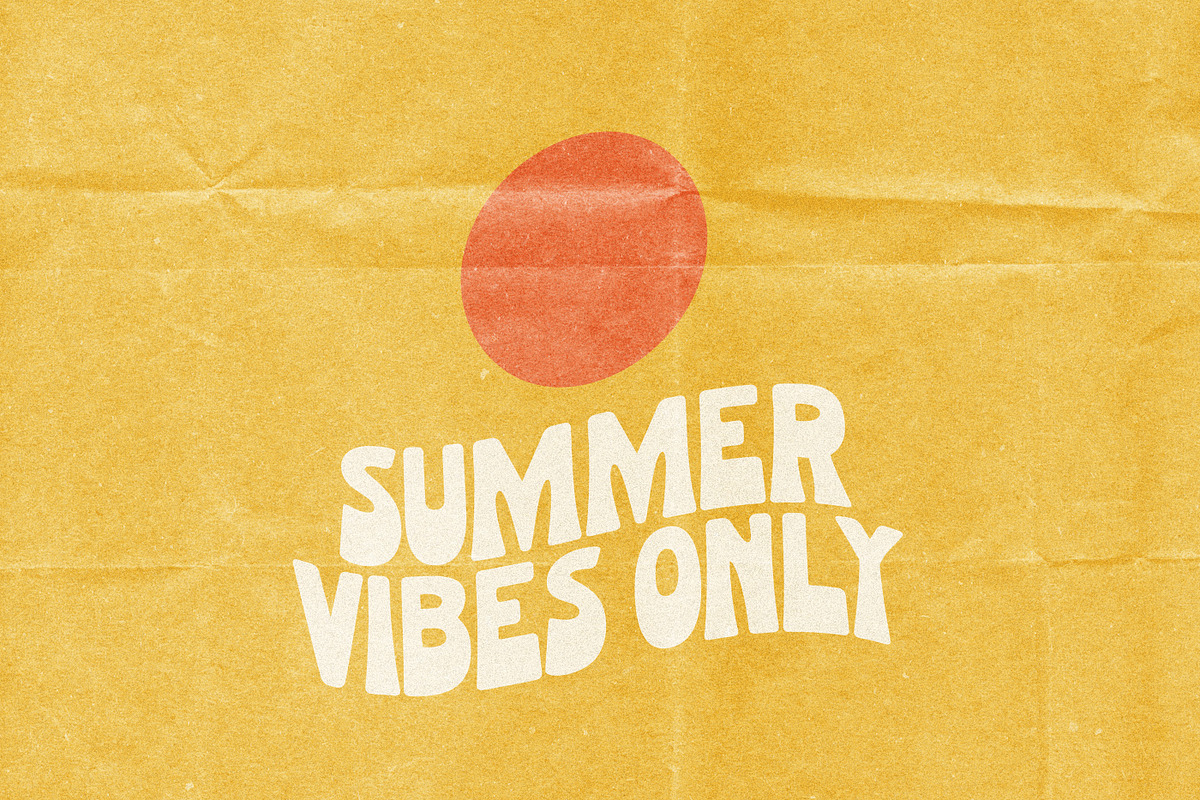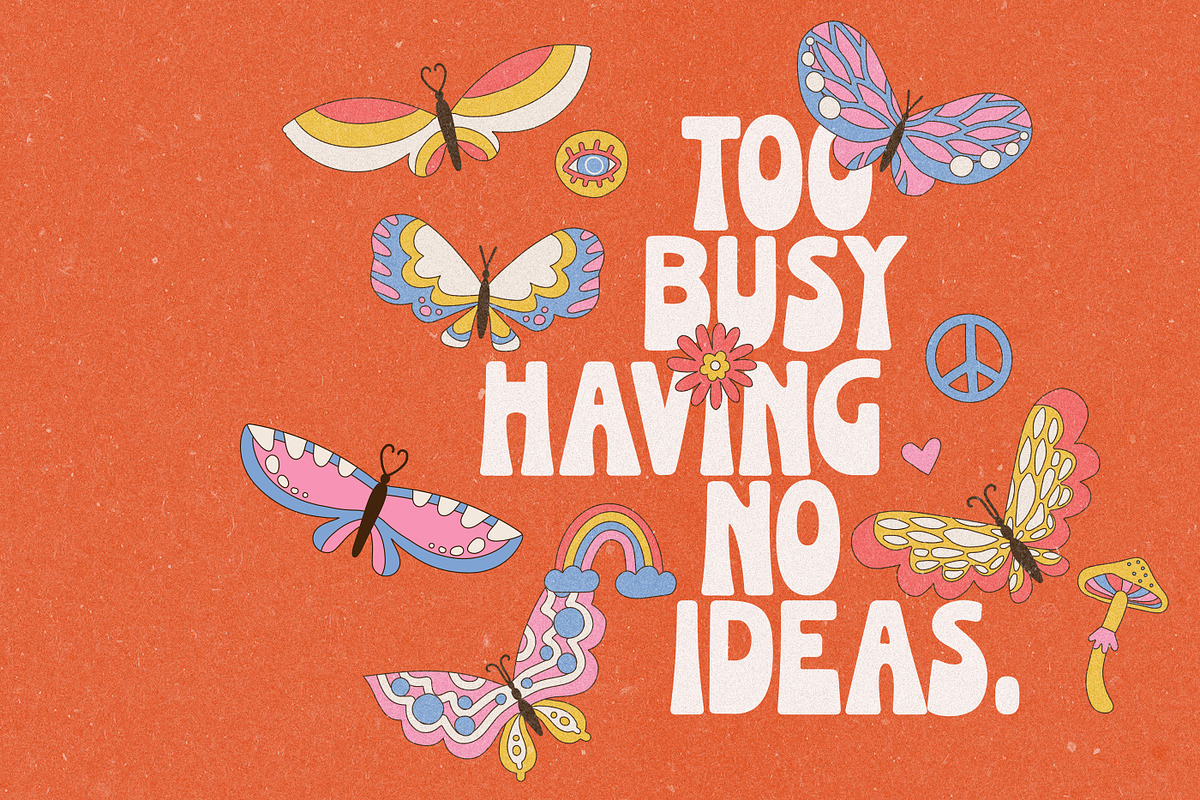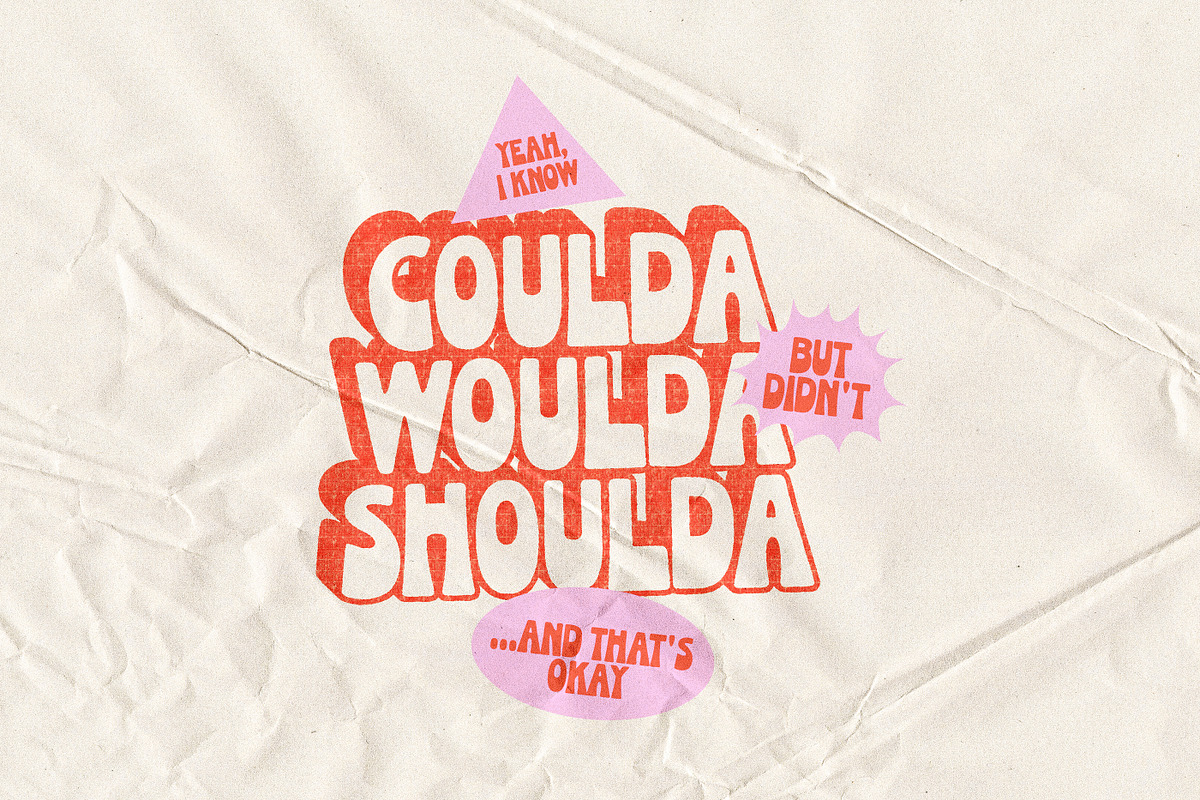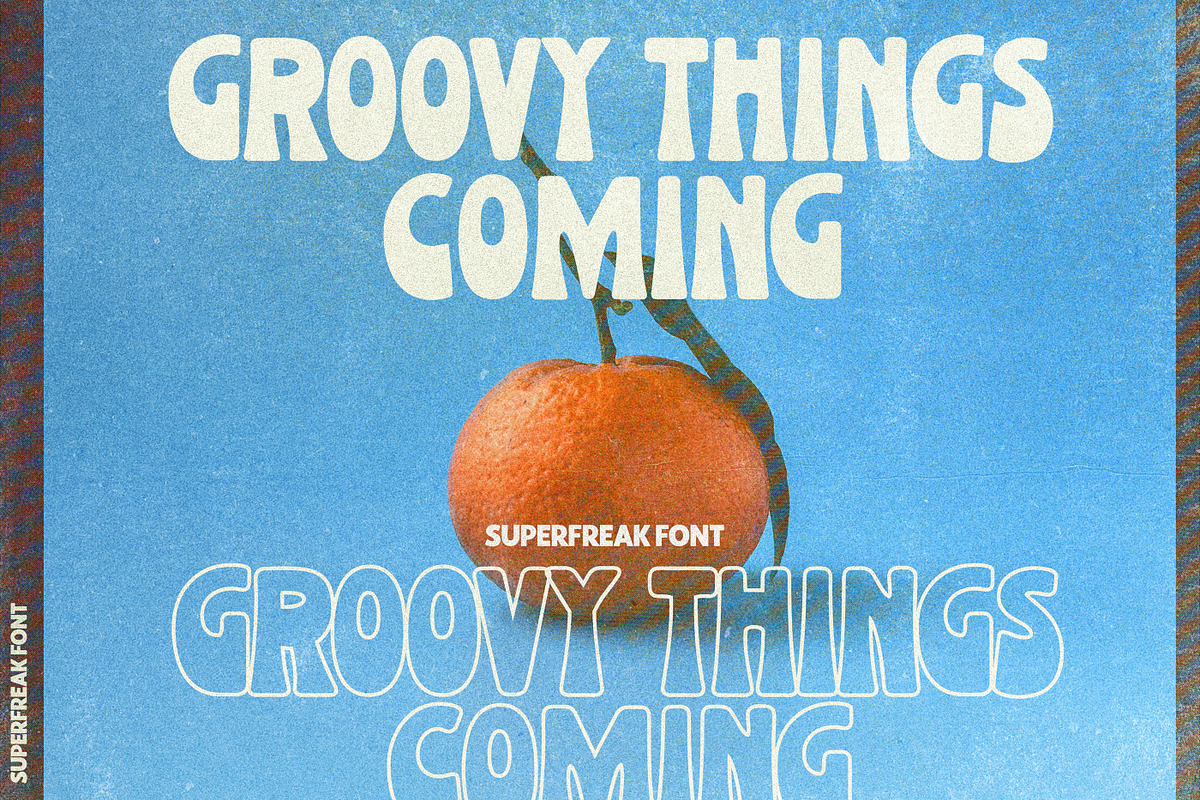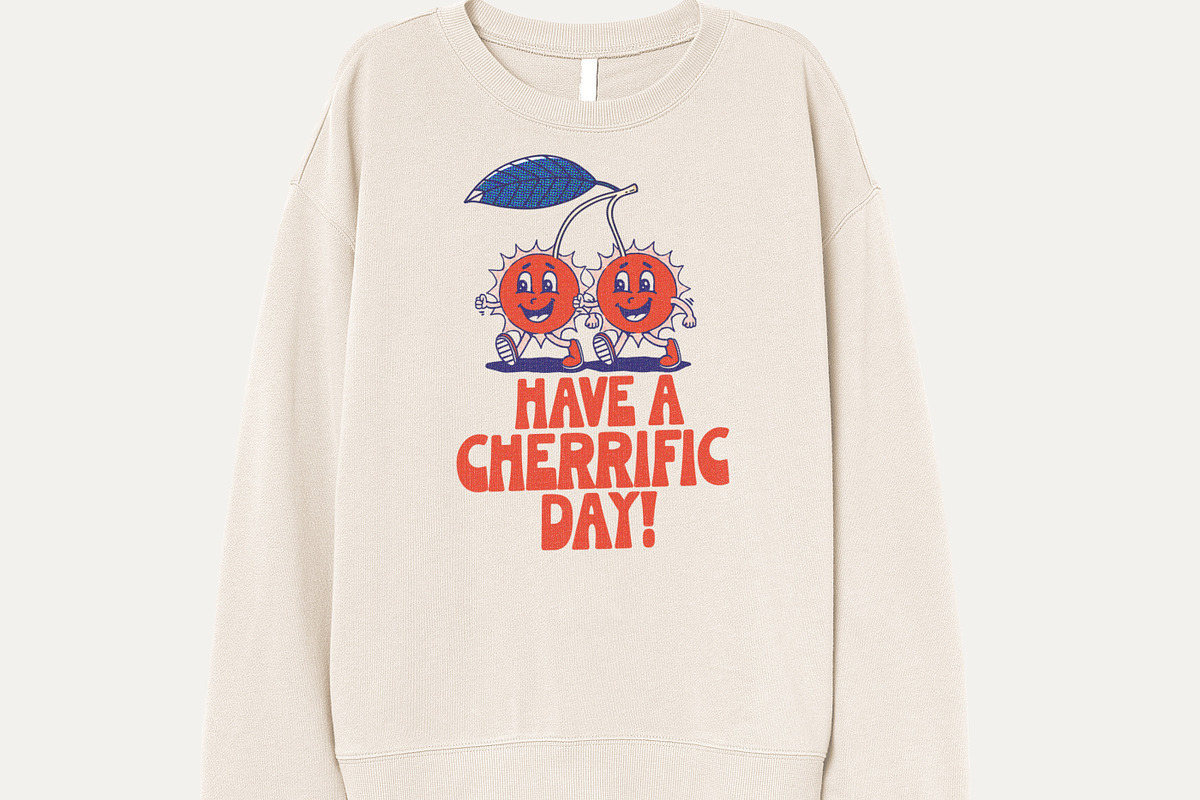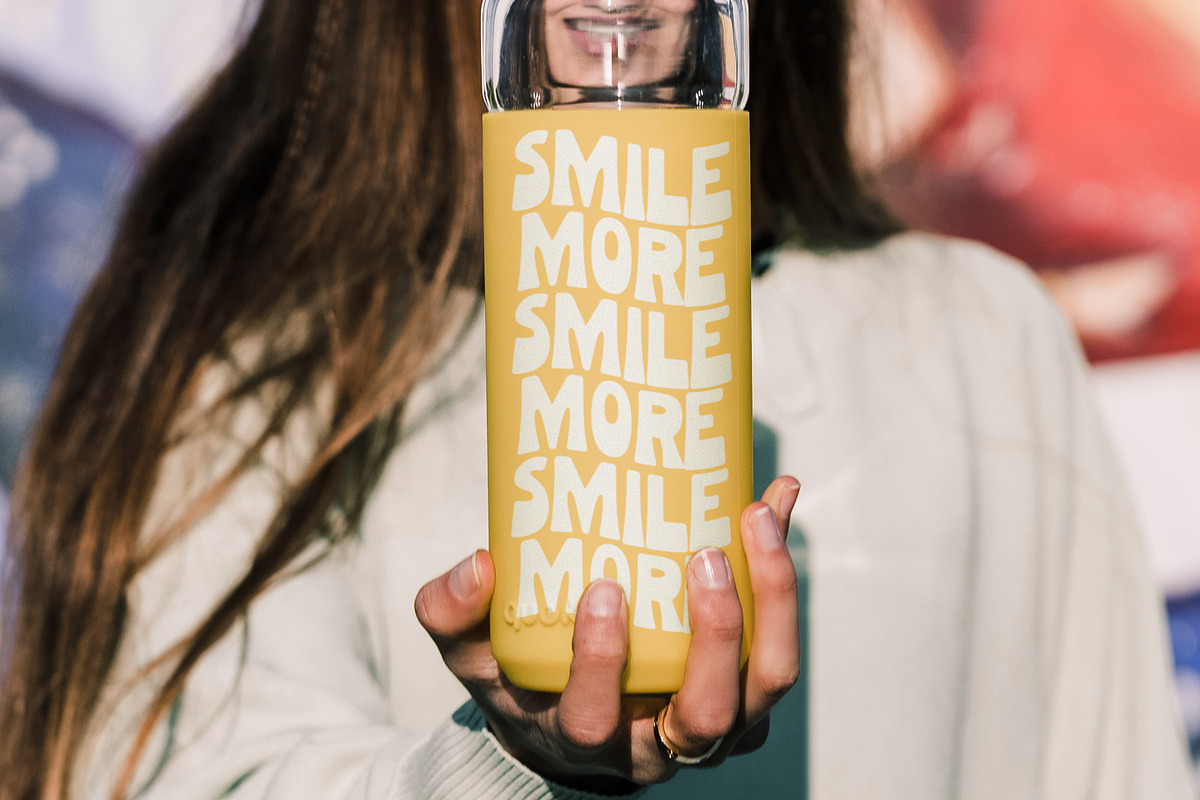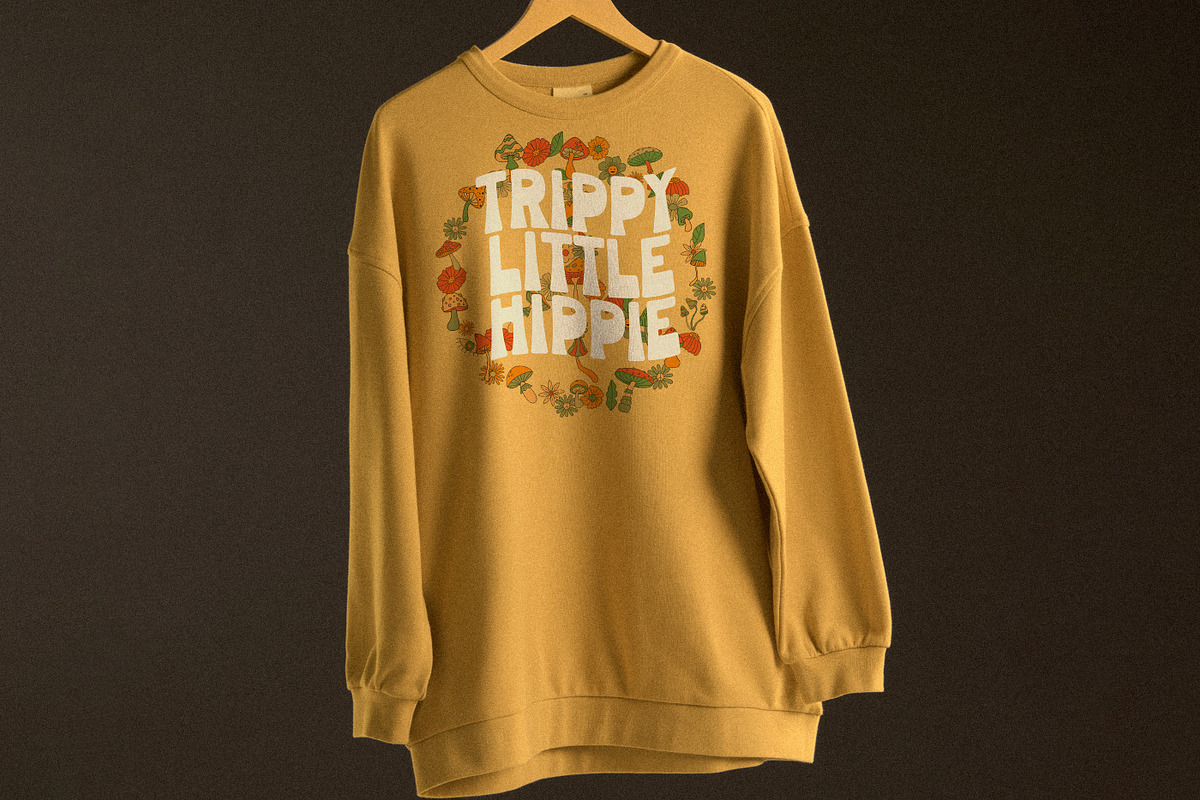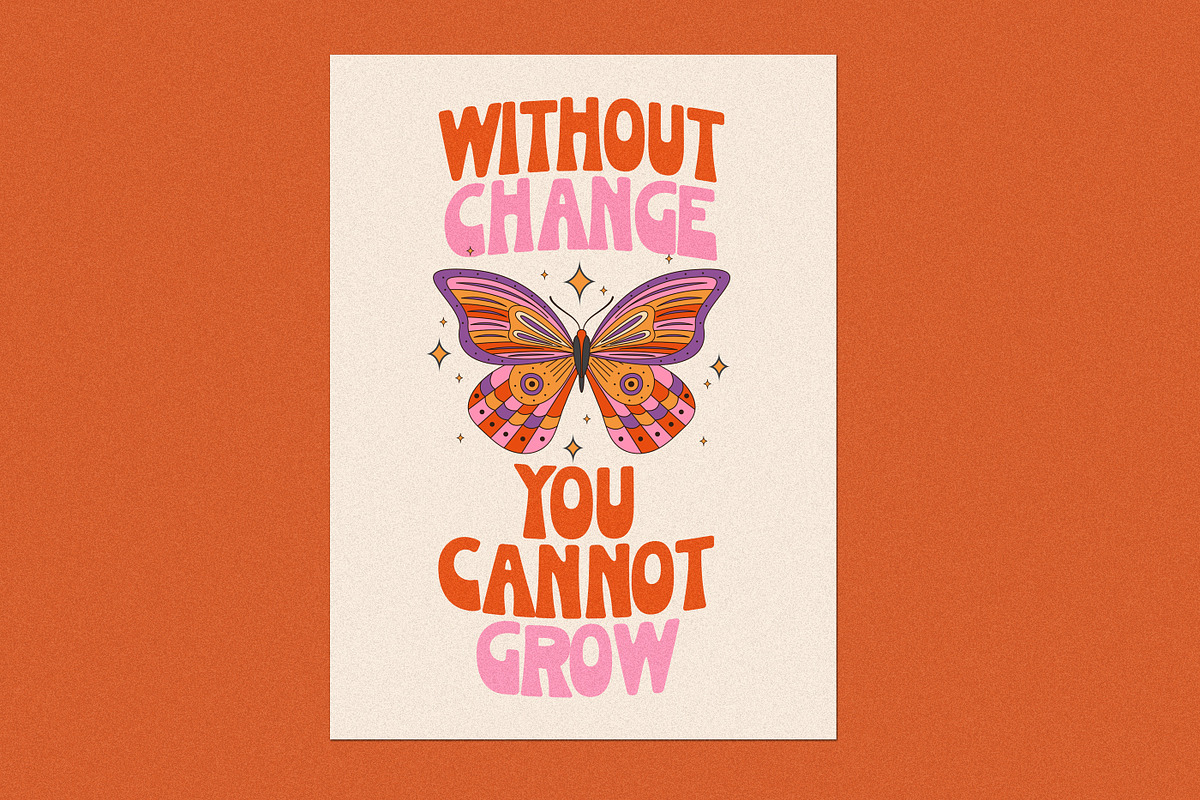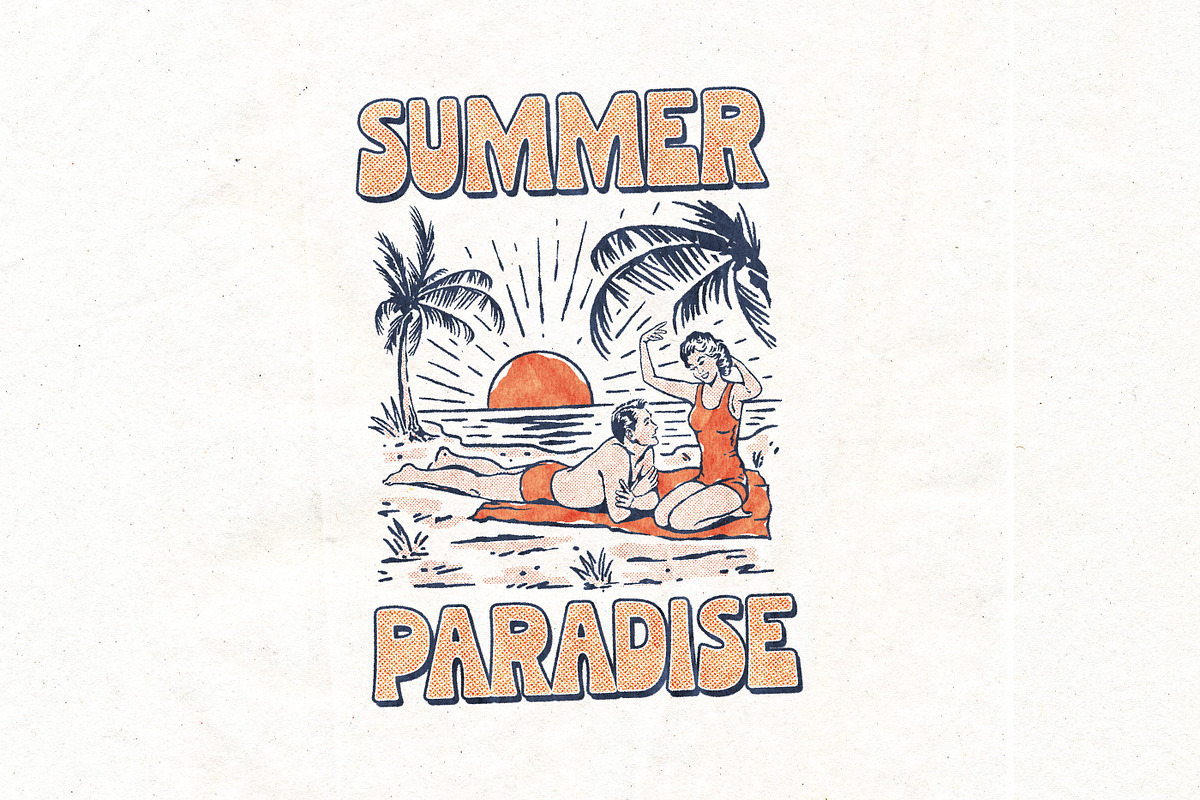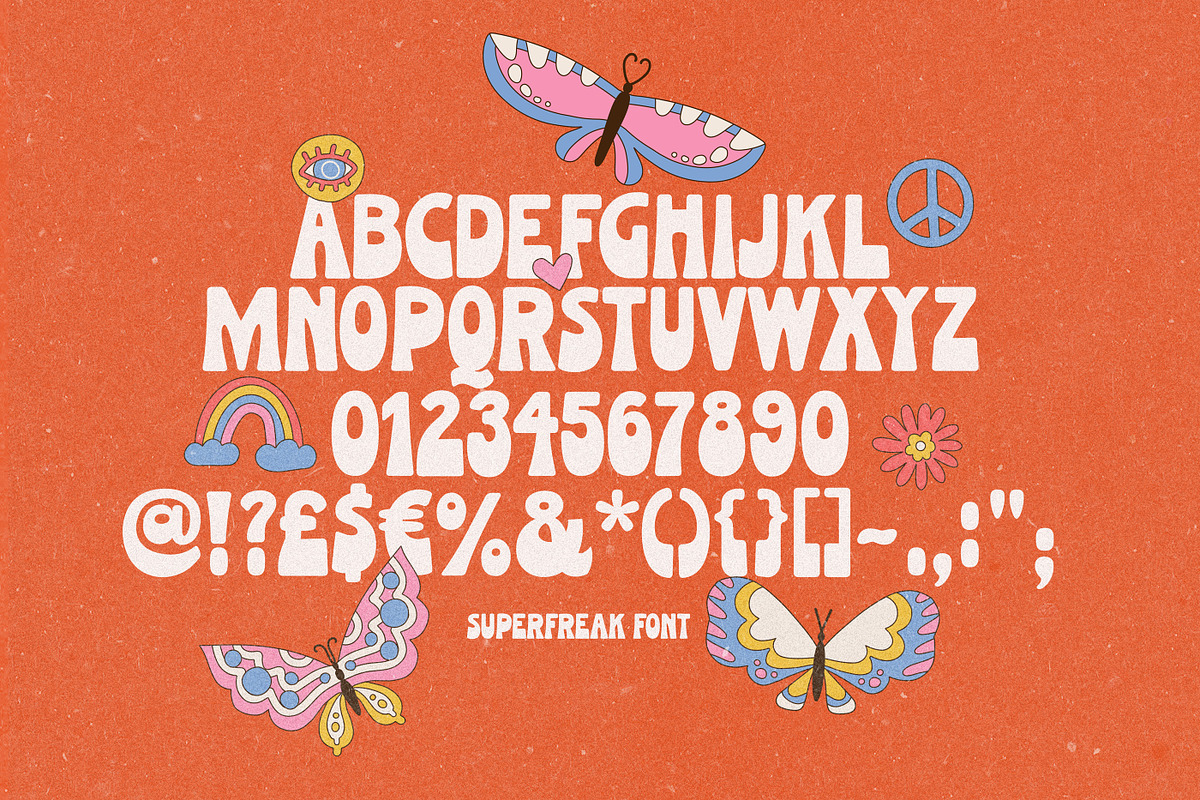
Superfreak Font
Say hello to Superfreak! Inspire some retro fun with an all-caps, 70's inspired font complete with groovy bellbottoms!
Superfreak comes in two versions - Regular and Outline.